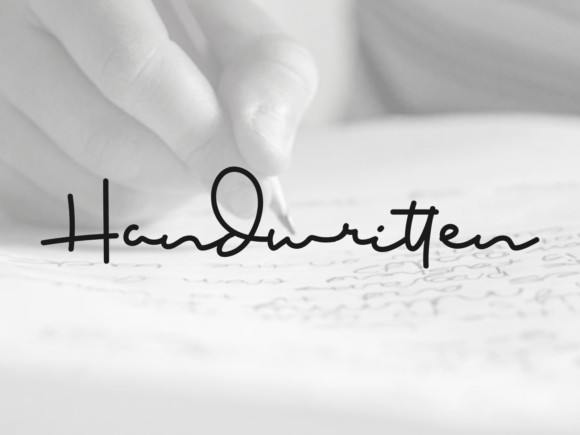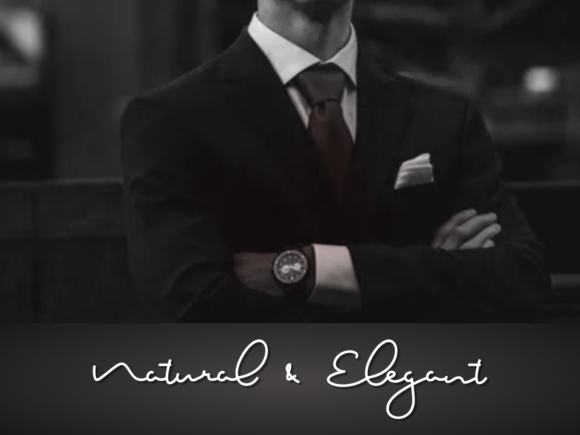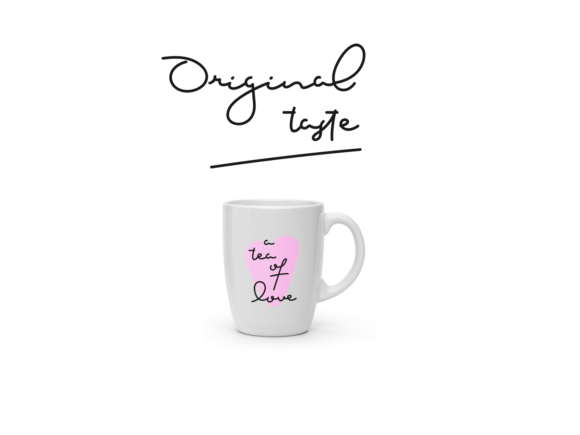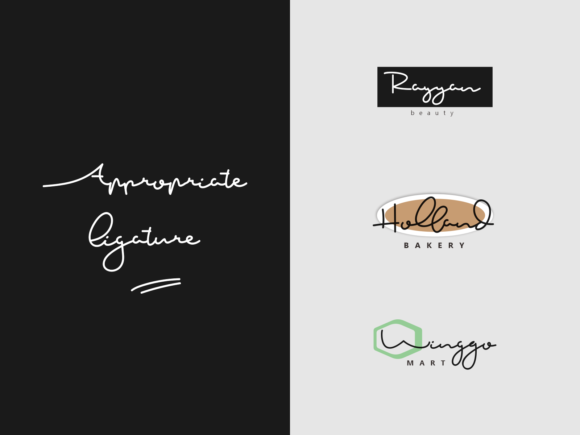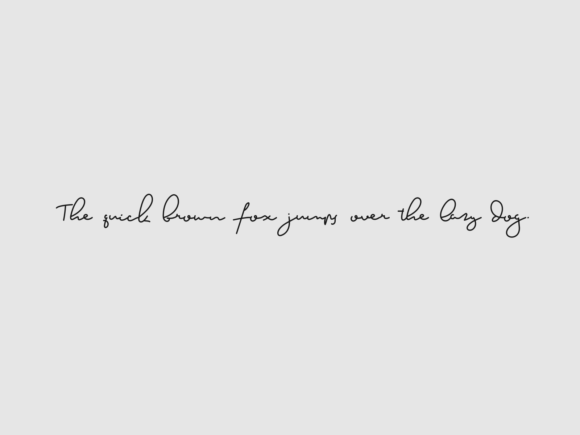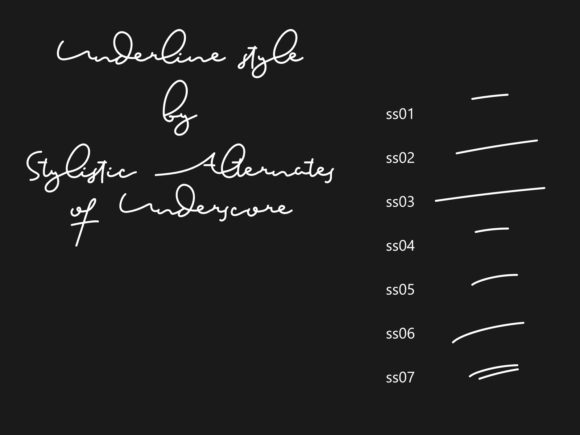
Introduction to Prof. Bens Font
Prof.
Bens is a stylish, refined script font that exudes wisdom and professionalism Its fashionable alternatives and ligatures make this font a perfect fit for each of your projects.
Key Features of Prof. Bens Font